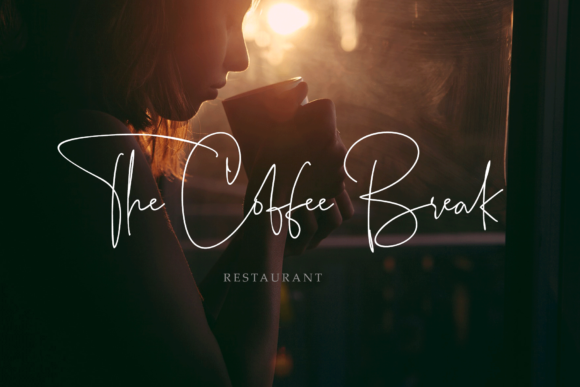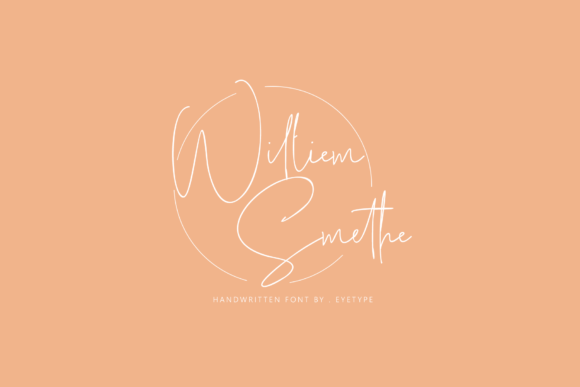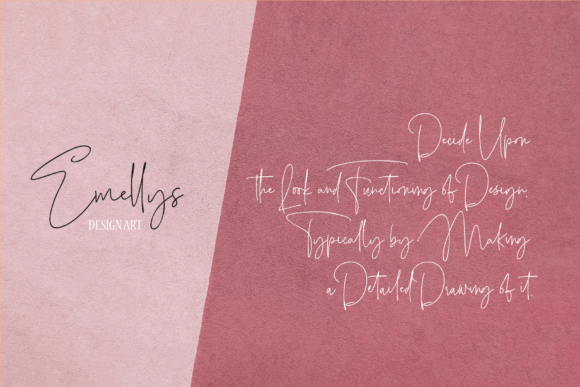
Nightfall Font
About Nightfall Font
Nightfall feels light, charming and unique and will turn any design idea into an authentic piece of art. Get inspired by this signature script’s modern elegance!